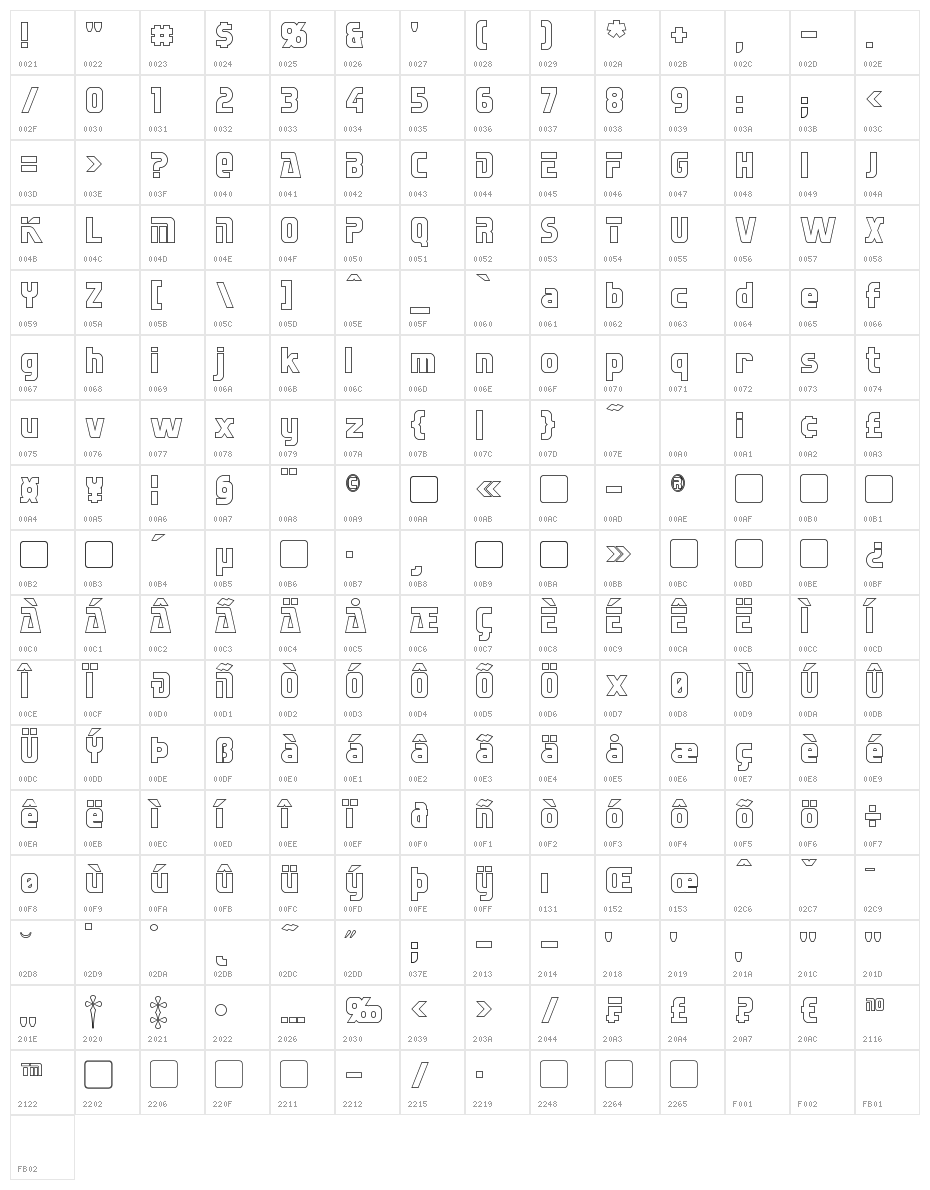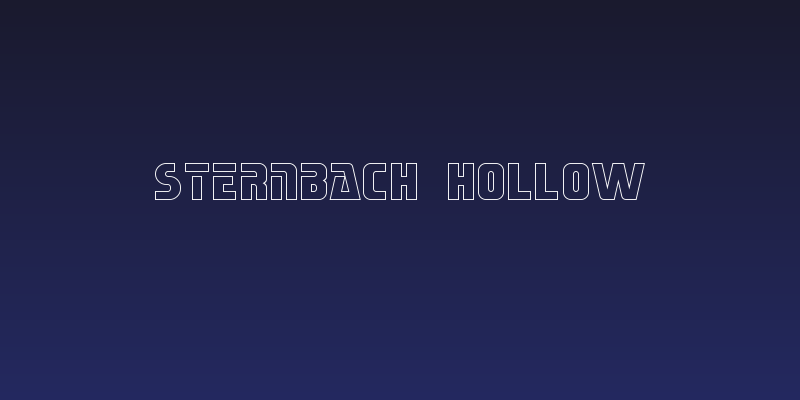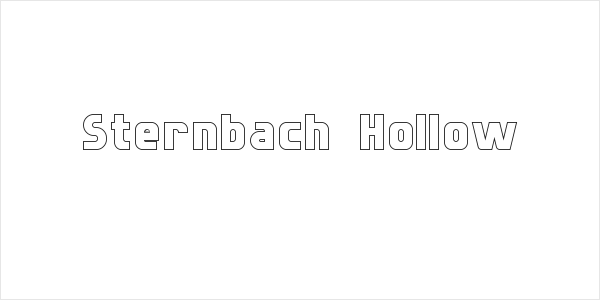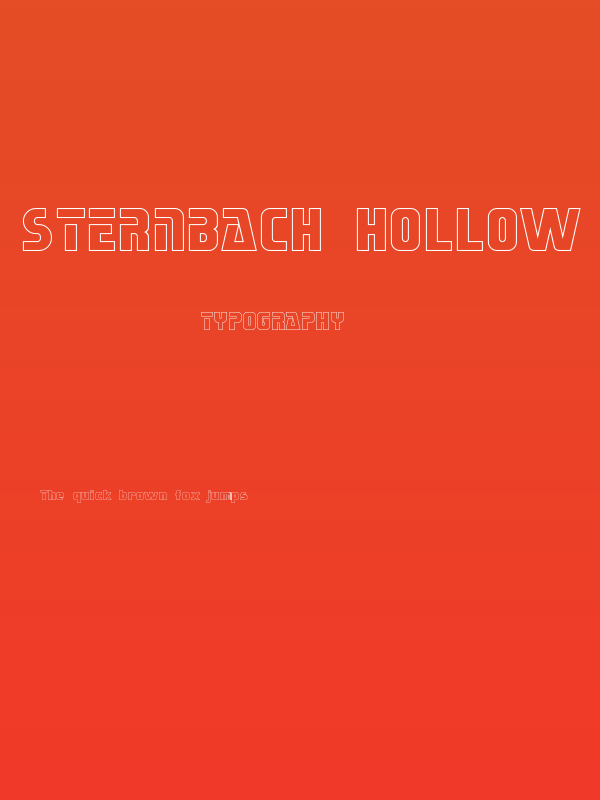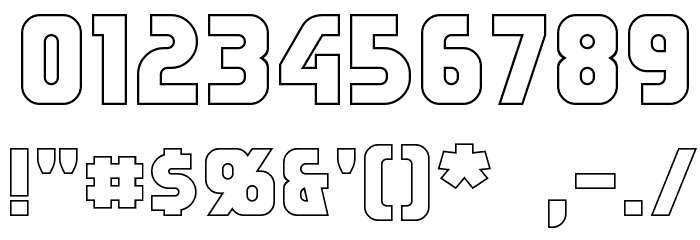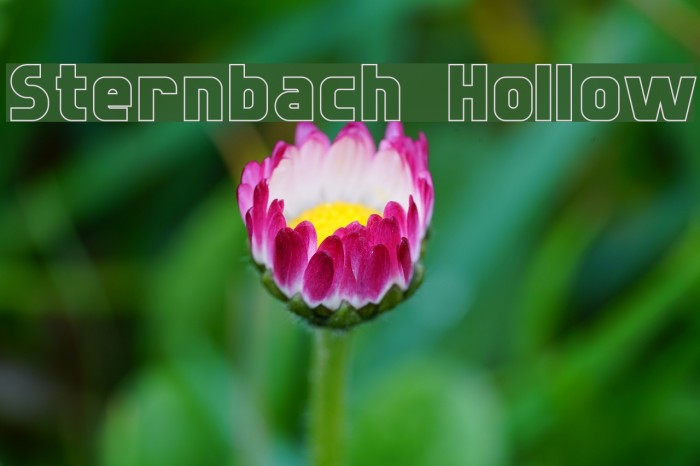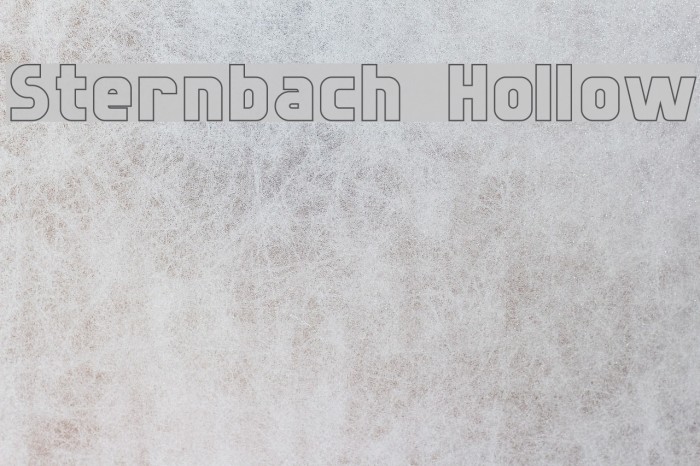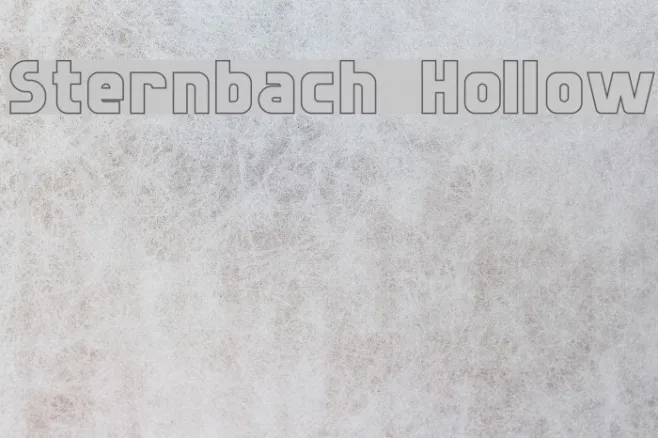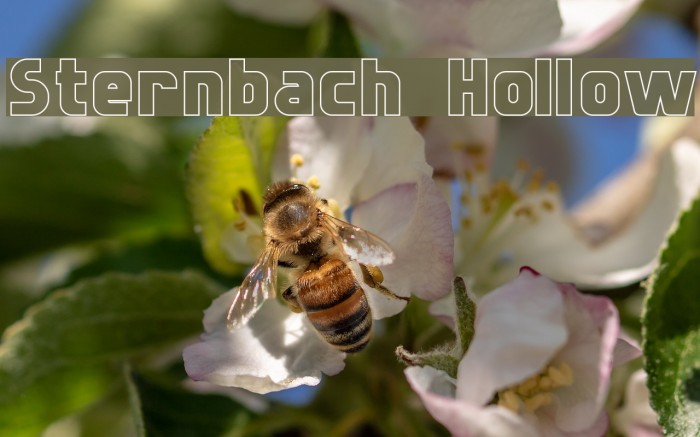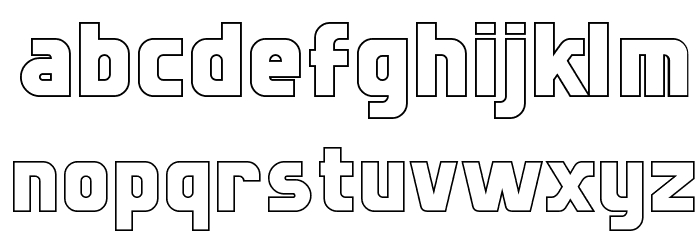
Sternbach Hollow Font
Sternbach Hollow Description
This font features a bold, geometric design with a hollow interior, creating a striking and modern appearance. The uppercase and lowercase letters maintain a consistent width, giving the font a uniform and structured look. The characters are outlined with clean, sharp edges, emphasizing a futuristic and technical aesthetic. The numbers and special characters follow the same design principles, ensuring a cohesive style throughout. This font's hollow nature allows for creative layering and color use, making it versatile for various design applications.
| Proposed Projects | Ideal for futuristic branding, tech-related designs, posters, and digital media where a modern and bold statement is needed. |